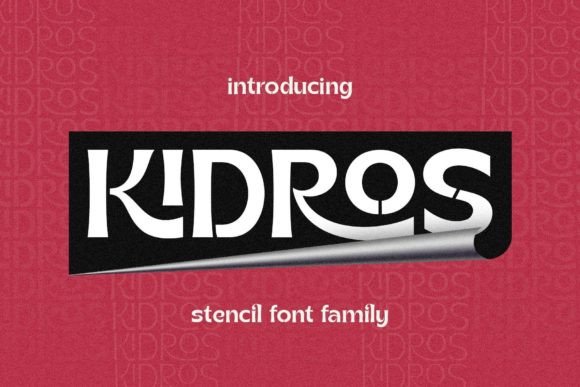
In the vast realm of digital design, where words come alive as visual masterpieces, allow us to introduce you to Kidros Font, a typographic treasure that will ignite your creative spirit and transform your designs into captivating expressions. Immerse yourself in the world of retro display stencil artistry, where Kidros reigns supreme. Its irregular dynamic shapes, reminiscent of vintage charm, possess the power to elevate your creations to new heights of visual appeal.
With Kidros as your design companion, you'll embark on a journey through time, where the past and present harmoniously blend. This font is an ode to nostalgia, capturing the essence of yesteryear while injecting a breath of fresh air into contemporary design. Whether you're crafting eye-catching restaurant signs, alluring posters, or captivating social media posts, Kidros will effortlessly elevate your message with its inherent charm.
But Kidros is more than just a vintage-inspired font; it's a versatile chameleon that effortlessly adapts to a myriad of design styles. Its inherent flexibility allows it to seamlessly transition from classic elegance to modern minimalism, making it an indispensable tool in the arsenal of any discerning designer. Its PUA encoding unlocks a treasure trove of amazing glyphs and ligatures, empowering you to unleash your creativity and craft truly distinctive designs.
With Kidros as your trusted font companion, you'll discover the joy of effortless expression. Its user-friendly interface and comprehensive character set make it an absolute pleasure to work with, ensuring that your creative vision is brought to life with minimal fuss. Unleash the boundless potential of Kidros today and embark on a creative journey like never before.